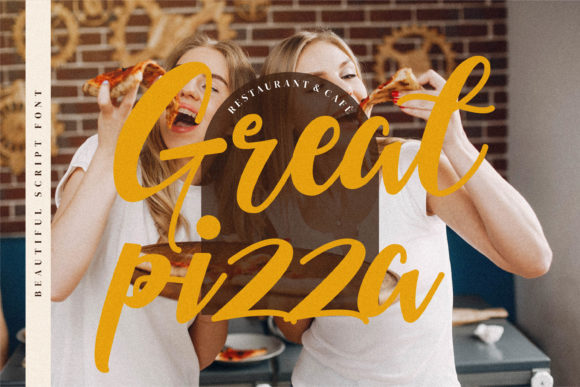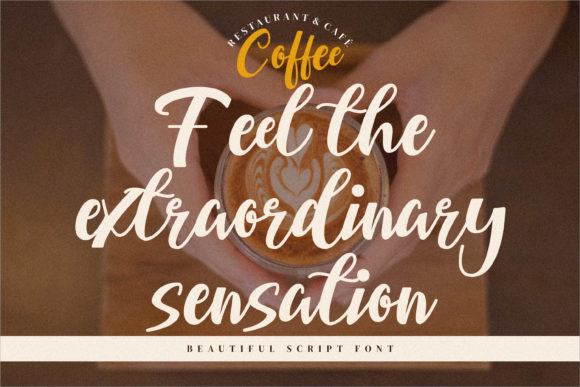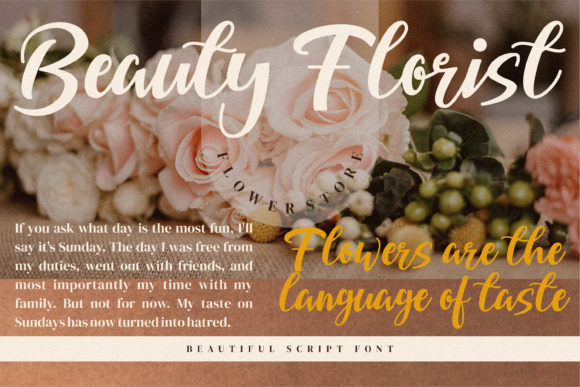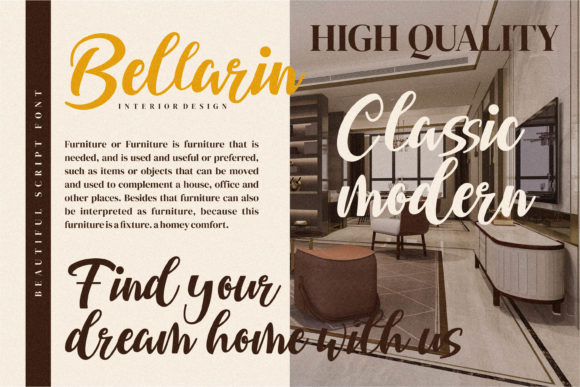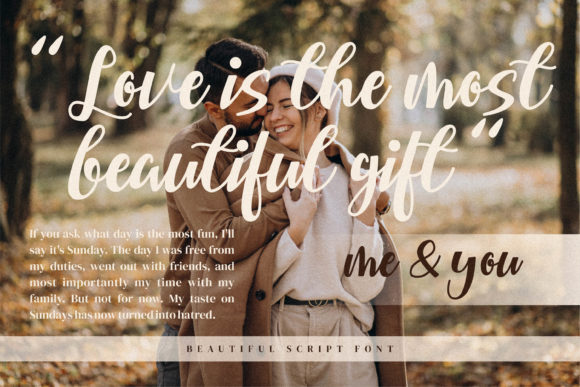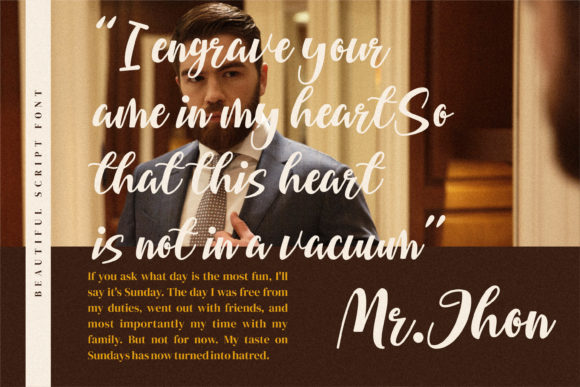
There’s nothing quite like the thrill of bringing a design to life. The moment when all the pieces come together, and your vision starts to take shape. For designers, it’s a rush of excitement and a sense of pride that’s hard to match. But, let’s be real – it all starts with the right font. That’s where the Bellarin Font comes in, a beautiful and modern script font designed to elevate your projects to the next level.
Bellarin Font is all about balance and variation, offering a unique look that’s both flowing and refined. With its PUA encoding, you’ll have access to a world of glyphs and swashes, giving you endless possibilities to customize your designs. Whether you’re working on a logo, a brochure, or a website, Bellarin Font is the perfect choice for designers who want to add a touch of elegance and sophistication to their work.
Bellarin Font Key Features
- Font Family: Bellarin
- Unique Characteristic: Bellarin font features a unique blend of modern and vintage elements, with intricate details and ornate flourishes
- Font Style: Script, Display, and Sans-Serif styles are available within the Bellarin font family
Bellarin Font Review
I recently had the chance to work with the Bellarin Font, and I must say, it has some great qualities. ✨ One of the things that stands out is its elegant and sophisticated look, perfect for high-end branding or luxury product designs. The font’s clean lines and classic feel make it suitable for a wide range of applications, from advertising to editorial content.
Another advantage of Bellarin is its versatility. It comes in a variety of weights, from light to bold, which allows for a great deal of flexibility in terms of layout and design. This makes it an excellent choice for designers who want to create a cohesive look across different mediums and formats.
However, there are some limitations to consider. ⚠️ One of the main drawbacks is the font’s limited character set. This may cause issues for designers who need to typeset complex texts or languages that require a broader range of characters.
Overall, I would say that Bellarin Font is a solid choice for designers who are looking for a high-end, elegant font with great versatility. However, it may not be the best option for those on a tight budget or who require a more extensive character set.
- Elegant and sophisticated look
- Versatile and suitable for a wide range of applications
- Available in various weights
- High-end quality and design
- Limited character set
Bellarin Font: A Practical Application Guide
Tips for Getting the Most Out of the Bellarin Font
Use the Bellarin font for headings and titles to add a touch of elegance and sophistication to your designs.
Experiment with different font sizes and styles to create a visually appealing contrast.
The Bellarin font is ideal for:
Editorial and magazine layouts
Alternatives to Bellarin Font
Oswald is a sans-serif font that is highly legible and versatile. It is suitable for use in headings, titles, and body text where a clear and modern look is desired. Oswald is similar to Bellarin Font in its clean and minimalist aesthetic, but it has a slightly more geometric feel and a wider range of weights.
Lato is a sans-serif font that is highly readable and elegant. It is suitable for use in body text, headings, and titles where a clean and sophisticated look is desired. Lato is similar to Bellarin Font in its modern and minimalist aesthetic, but it has a more rounded feel and a softer appearance.
Montserrat is a sans-serif font that is highly legible and modern. It is suitable for use in headings, titles, and body text where a clear and urban look is desired. Montserrat is similar to Bellarin Font in its geometric aesthetic, but it has a more condensed feel and a wider range of weights.